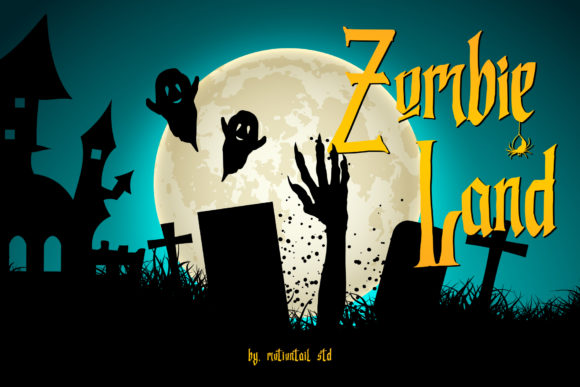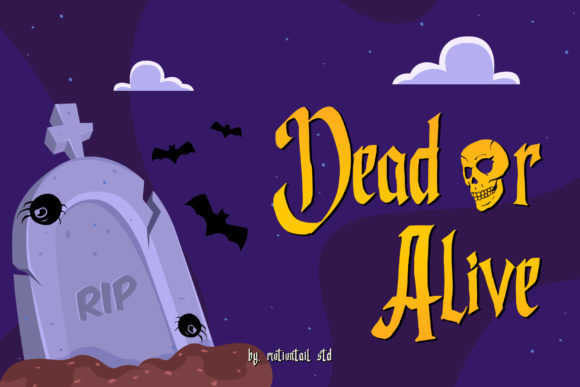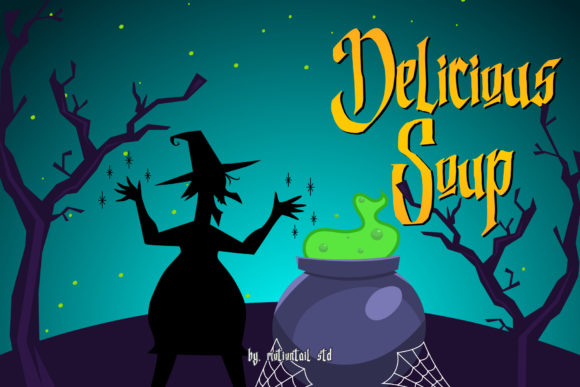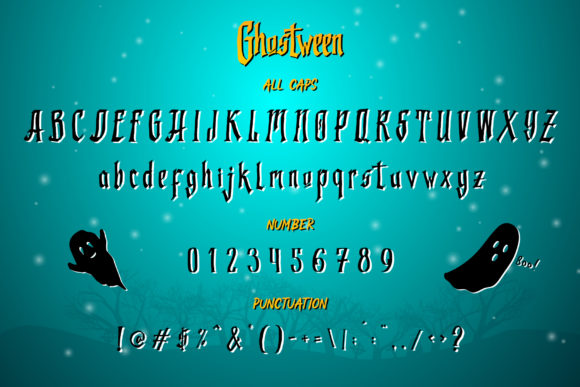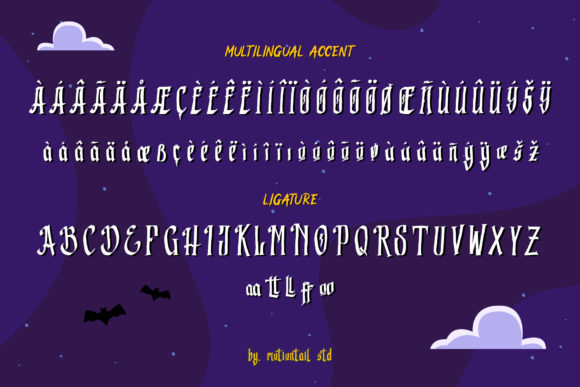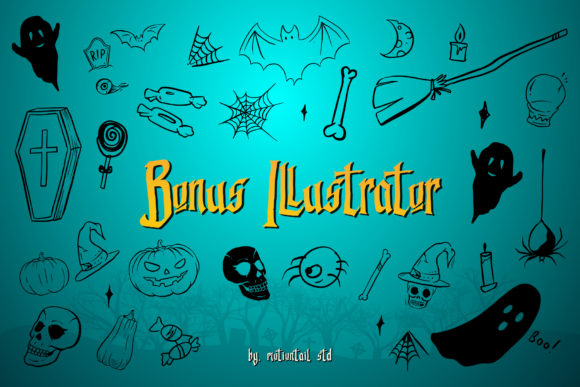
Introducing Ghostween Font: The Spookiest Display Font for Your Scary Party Ideas
Are you looking for a font that will add a touch of spookiness to your party decorations, invitations, and other craft projects? Look no further than Ghostween Font! This incredibly unique and eerie display font is sure to bring your scary party ideas to life. In this article, we’ll take a closer look at Ghostween Font, its features, and how you can use it to create a hauntingly beautiful atmosphere for your next Halloween party or spooky celebration.
What is Ghostween Font?
Ghostween Font is a specially designed display font that exudes a spooky and eerie feel. Its unique design makes it perfect for use in party decorations, invitations, and other craft projects that require a touch of Halloween magic. The font features intricate and curved lines that give it a haunting appearance, making it an ideal choice for anyone looking to create a spooky atmosphere.
Features of Ghostween Font
So, what makes Ghostween Font so special? Here are some of its key features:
- Unique Design: Ghostween Font has a one-of-a-kind design that sets it apart from other fonts. Its curved lines and spooky appearance make it perfect for Halloween-themed projects.
- Display Font: Ghostween Font is a display font, which means it’s designed to be used in large sizes, making it perfect for headings, titles, and other display purposes.
- Eerie and Spooky: The font has an eerie and spooky feel that will add a touch of Halloween magic to your projects.
- Versatile: Ghostween Font can be used in a variety of projects, including party decorations, invitations, and other craft projects.
How to Use Ghostween Font
Now that we’ve covered the features of Ghostween Font, let’s talk about how you can use it to create a spooky atmosphere for your next party or celebration. Here are some ideas:
- Party Invitations: Use Ghostween Font to create spooky party invitations that will set the tone for your Halloween party.
- Decorations: Add a touch of spookiness to your party decorations by using Ghostween Font in your banner, signs, and other display materials.
- Craft Projects: Use Ghostween Font in your craft projects, such as making spooky lanterns, ghostly decorations, and other Halloween-themed crafts.
- Social Media Posts: Use Ghostween Font to create spooky social media posts that will get your followers in the mood for Halloween.
Tips for Using Ghostween Font
Here are some tips for using Ghostween Font effectively:
- Use it in Large Sizes: Ghostween Font is a display font, so it’s best used in large sizes to create a bold and spooky effect.
- Pair it with Other Fonts: Pair Ghostween Font with other fonts to create a unique and interesting contrast.
- Experiment with Colors: Experiment with different colors to find the perfect combination that will make your project stand out.
Ghostween Font is an incredibly unique and spooky looking display font that will add a touch of Halloween magic to your party decorations, invitations, and other craft projects. Its eerie and curved lines make it perfect for creating a hauntingly beautiful atmosphere for your next spooky celebration. With its versatility and unique design, Ghostween Font is sure to become a favorite among designers and crafters. So, why not give it a try and see how it can bring your scary party ideas to life?